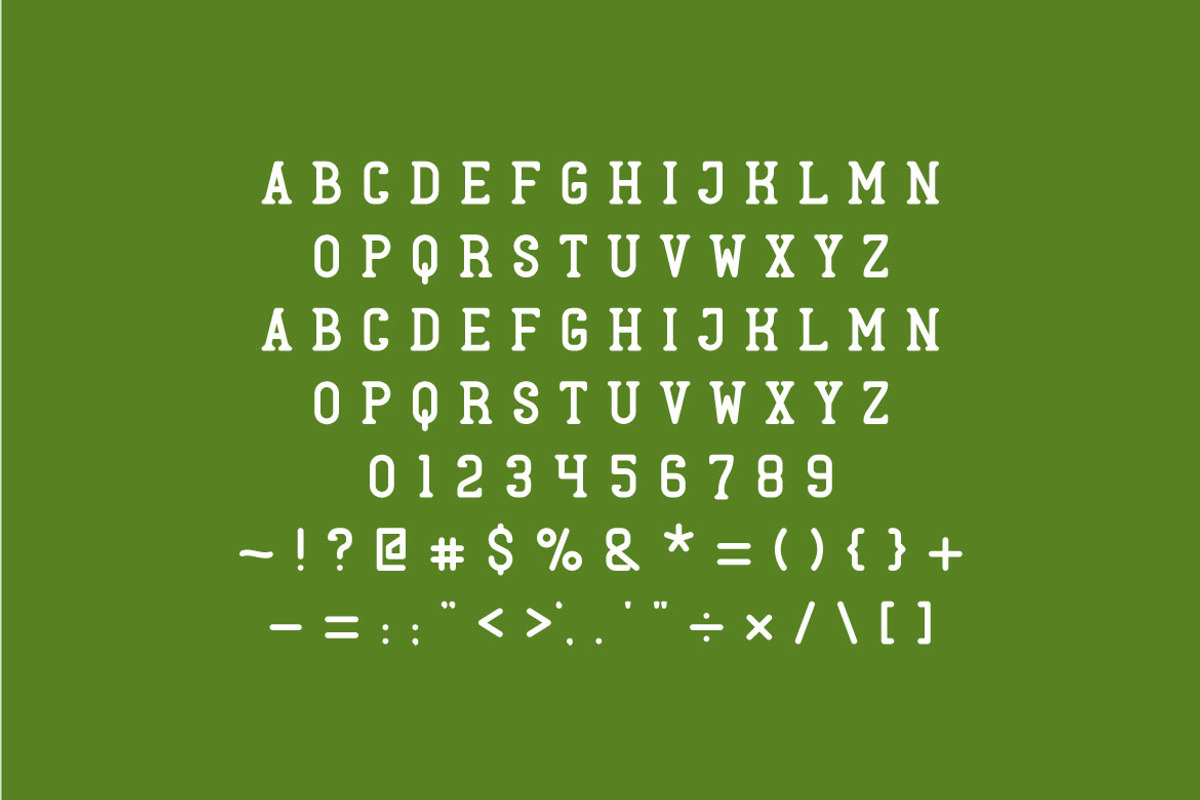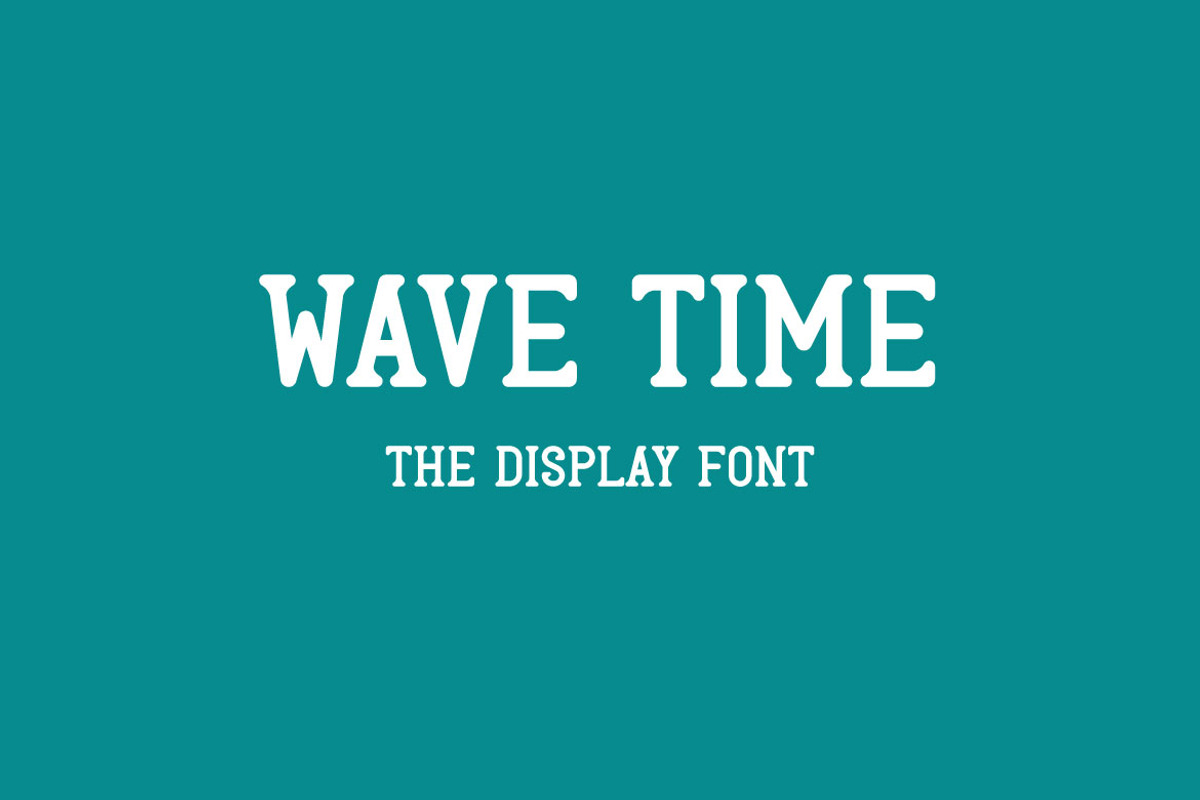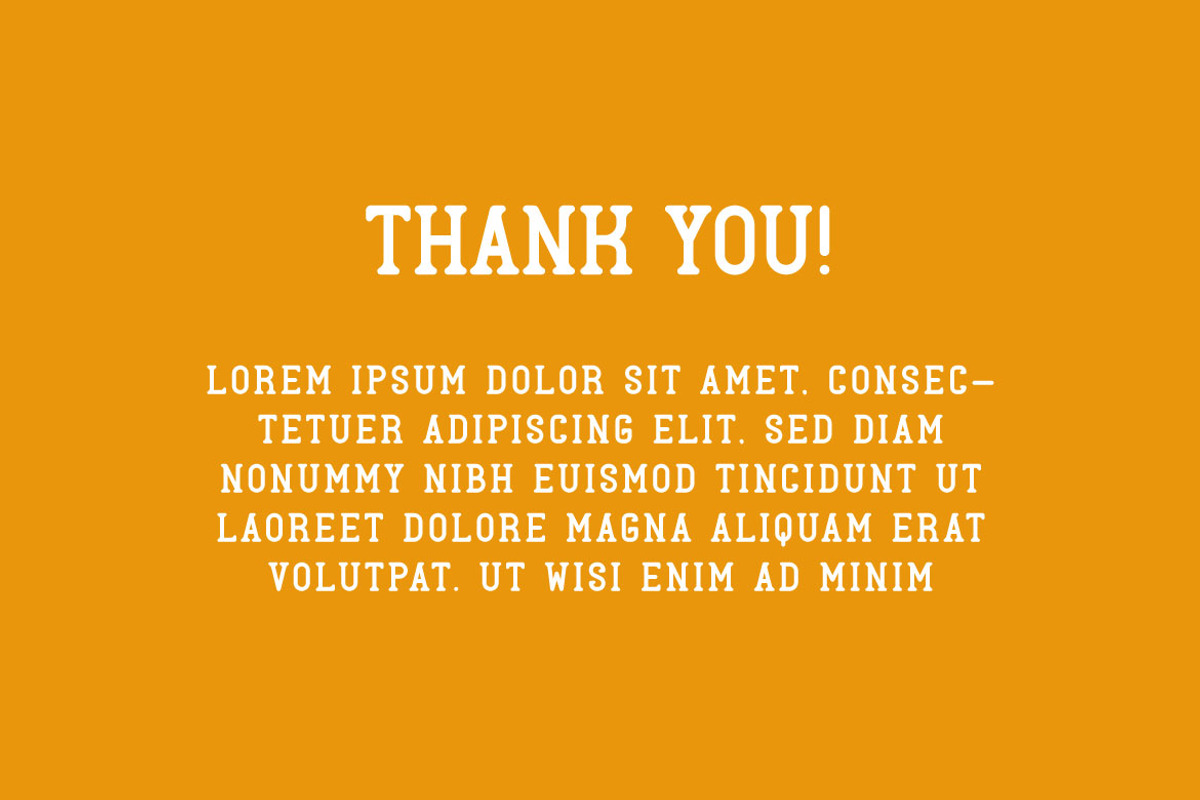
Wave Time - Serif Display Font
If you are looking for a formal display font, meet Wave Time
Wave Time is perfect for any works, such as your poster, card, book title, headline of news, banner, flyer, stationery and many more. It also can be used in Any scale work.